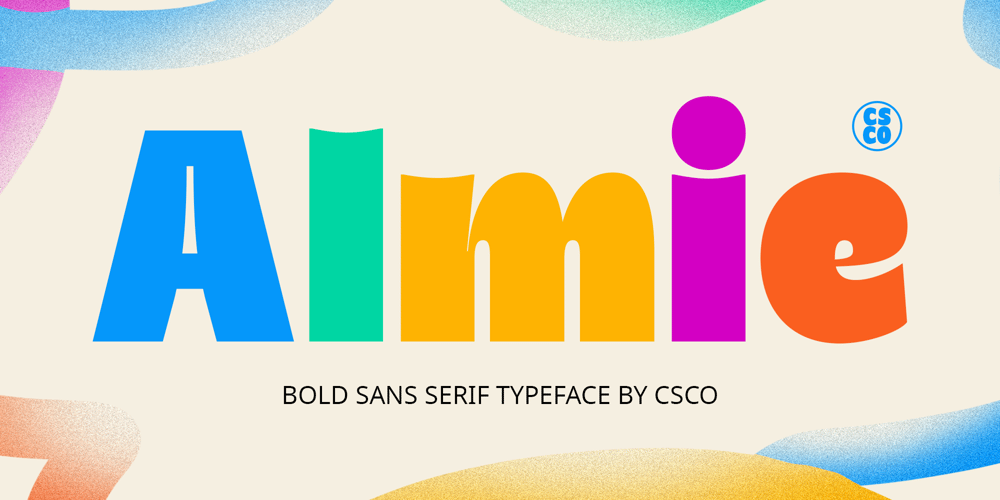
Almie
Almie font
Almie Font Family was designed by Trio Nazzar Saputra, Wahyu Hadi Yuana and published by Craft Supply Co. Almie contains 5 styles and family package options. Almie: Where Bold Meets FunkFunky Bold SansAlmie is a sans serif font with a bold and funky style, creating a unique effect in every design while also being suitable for professional use.Bold and Funky StyleWith its strong lines and playful elements, Almie offers a fresh take on traditional sans serif fonts. The bold design and funky details create a captivating and dynamic look, ideal for branding, presentations, and other projects that need a touch of individuality.Perfect for Professional UseWhether you’re designing a corporate presentation or creating a standout business logo, Almie is sure to make an impression. Its bold design and professional appeal make it perfect for displays that demand attention and convey a sense of confidence and modernity.Versatile and Easy to UseDespite its distinctive appearance, Almie is versatile and easy to use. The font works well in both large and small sizes, making it suitable for a variety of applications, from headlines and banners to body text and more. With its blend of bold design and funky style, Almie adds a captivating and professional touch to any design.